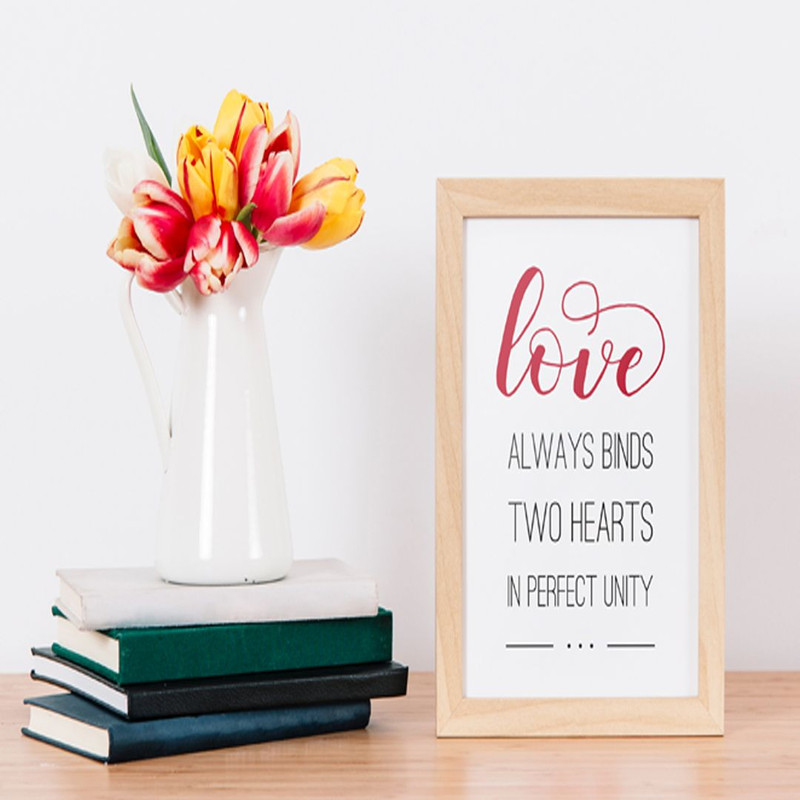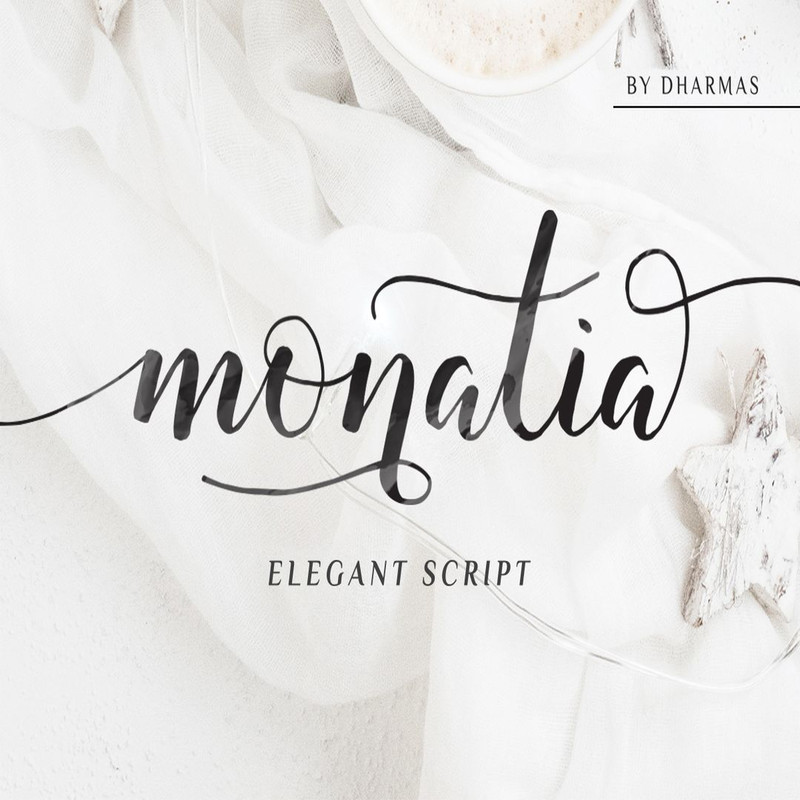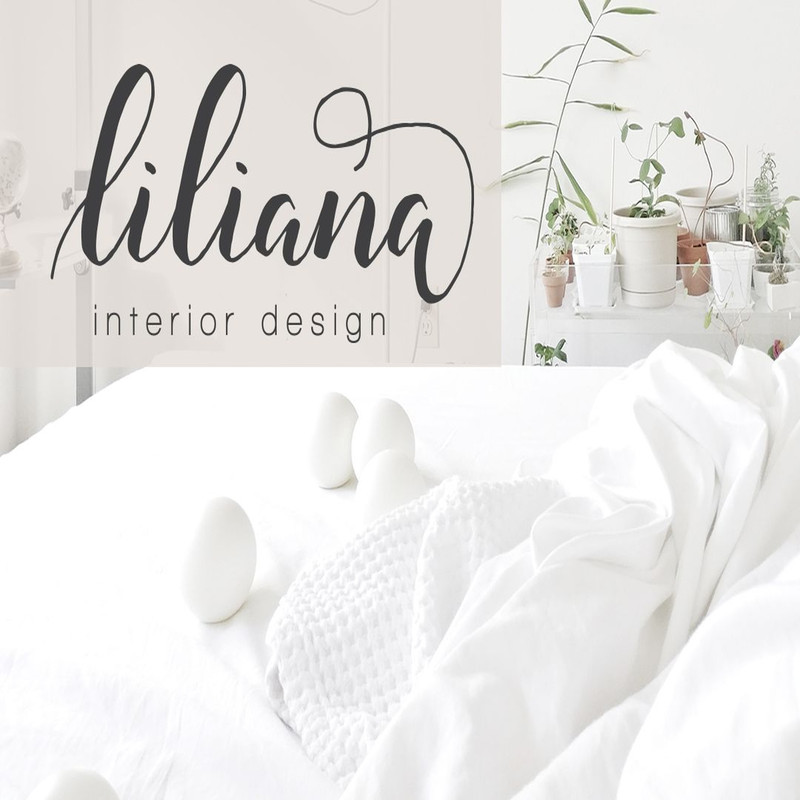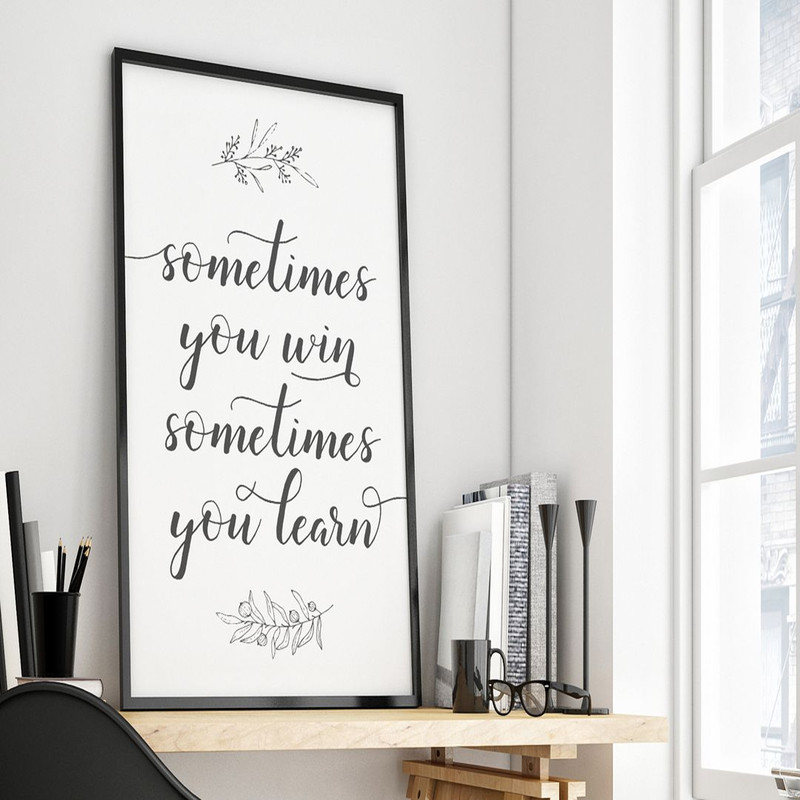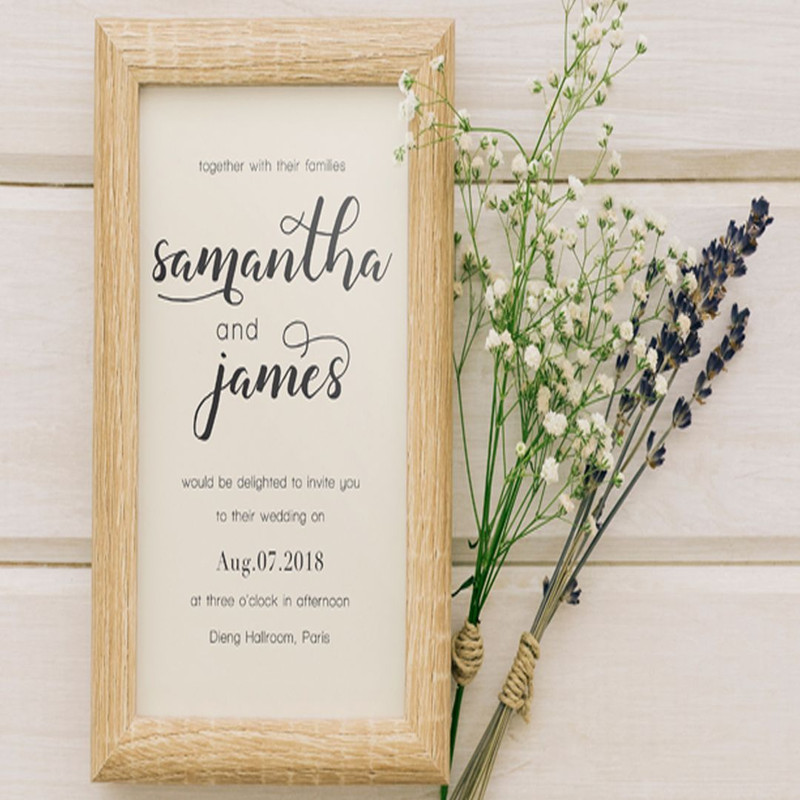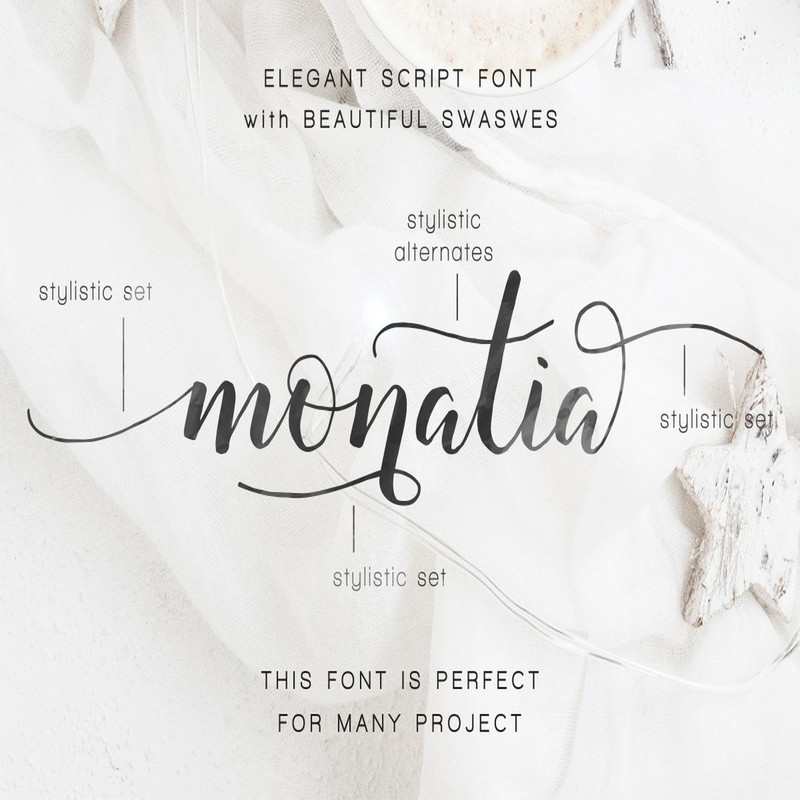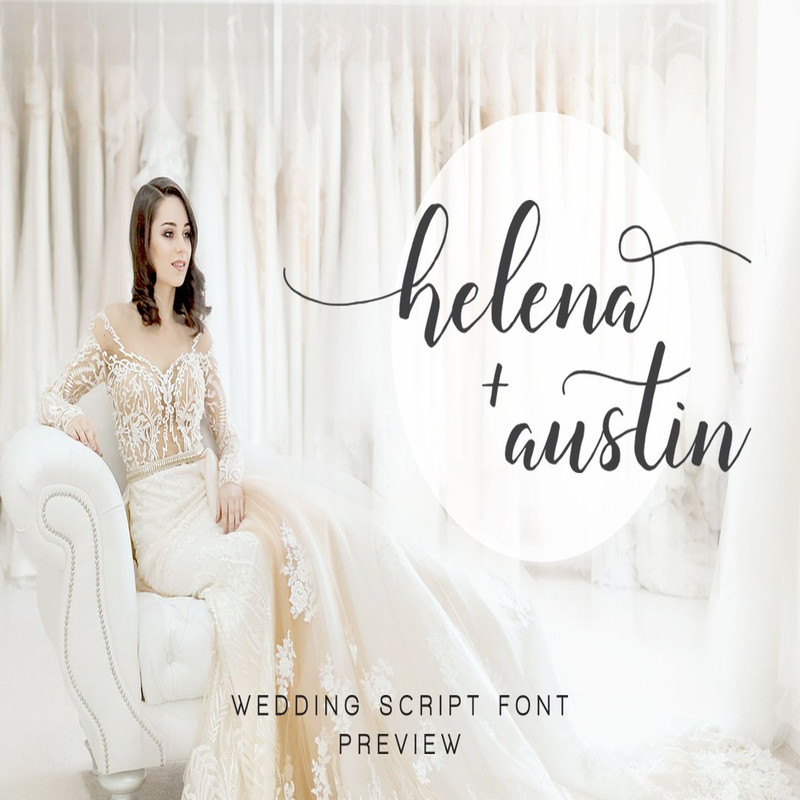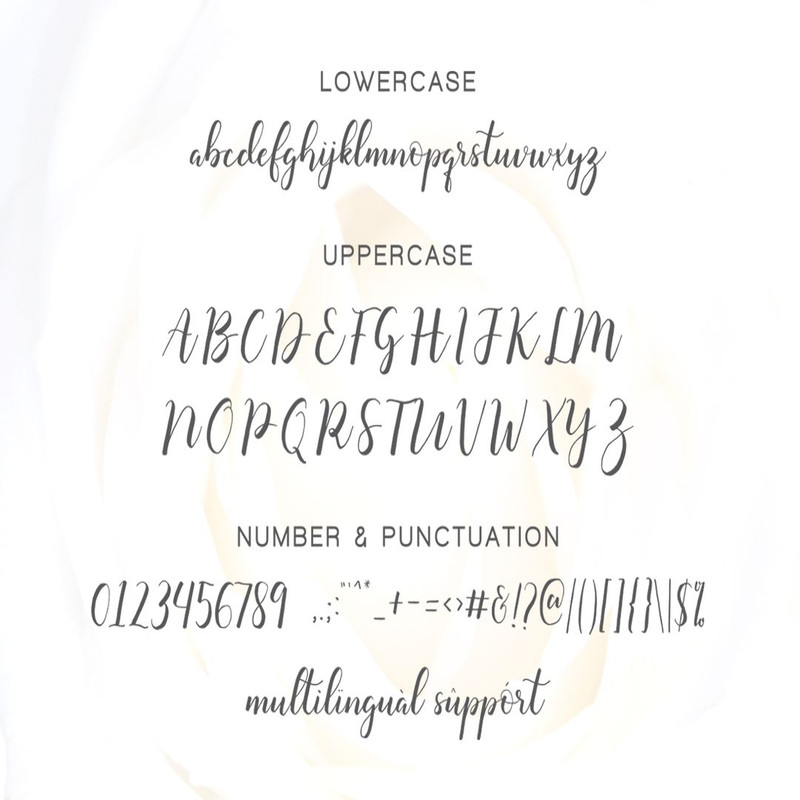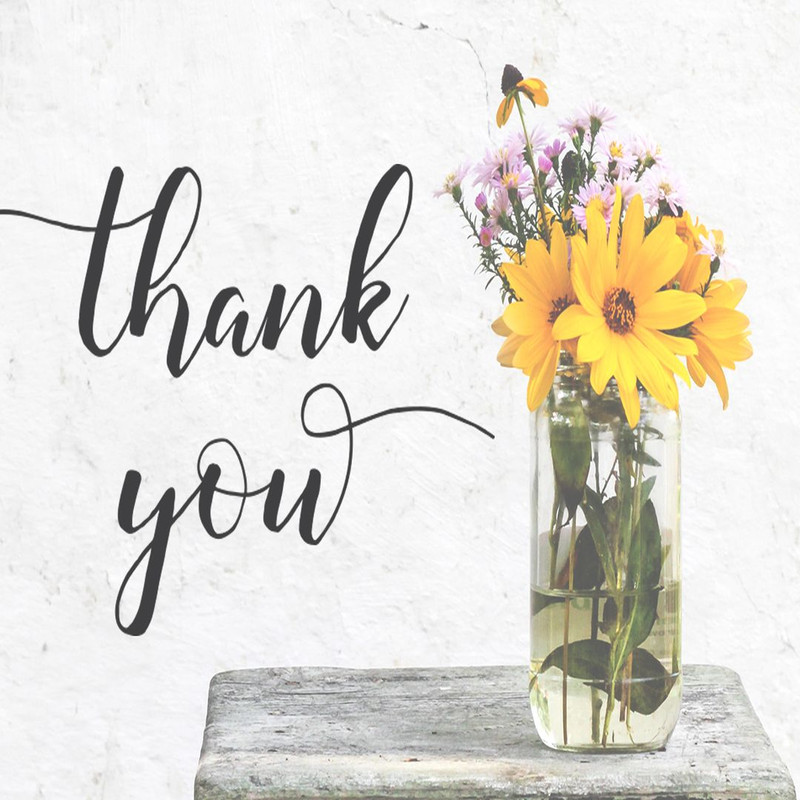
Monatia was built with OpenType features and includes beginning and ending swashes, alternate swash characters for most lowercase letters, numbers, punctuation, alternates, ligatures and it also supports other languages 🙂
This font is perfect for any project, ex: logo, wedding, watermark, logo, invitation, stationery, quotes, blog header, poster, branding, fashion, apparel, letter, etc.